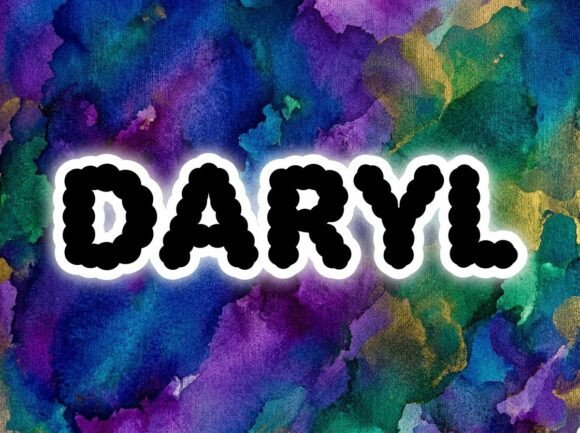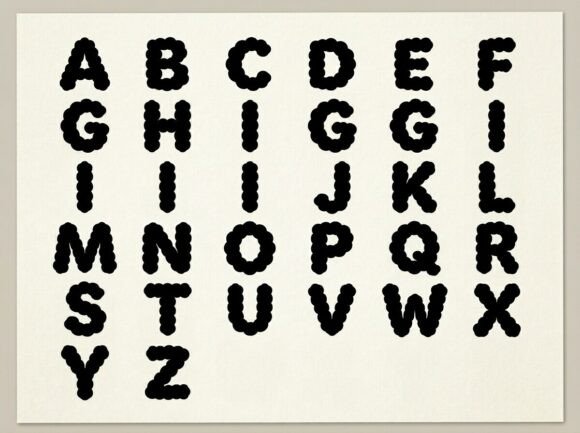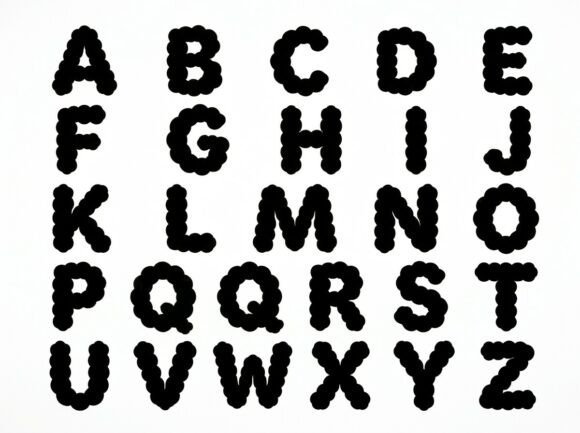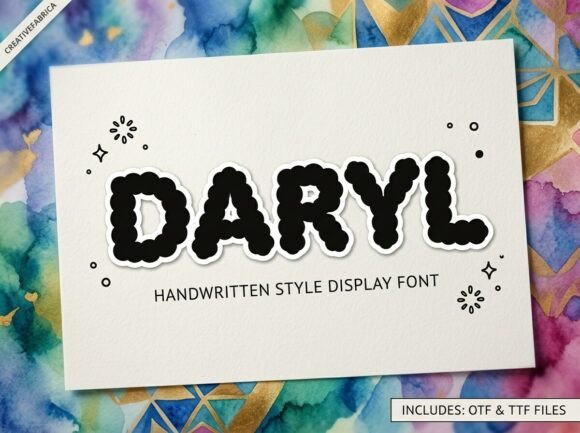
Add a Touch of Handcrafted Whimsy to Your Projects with Daryl Font
In the world of typography, few fonts capture the essence of handcrafted whimsy as perfectly as Daryl. This bold handwritten display font is a game-changer for designers and crafters looking to add a personal touch to their projects. With its unique “scalloped” edges and rhythmic, bubbly outline, Daryl is the perfect choice for anyone seeking to infuse their work with a sense of imaginative charm and professional, clean design.
The Unique Characteristics of Daryl Font
So, what sets Daryl apart from other fonts? The answer lies in its distinctive features. Each letter in the Daryl font boasts a rhythmic, bubbly outline that mimics the soft texture of clouds or artisanal paper cutouts. This unique characteristic gives Daryl a heavy visual weight and organic rhythm that is hard to resist. Whether you’re designing for a children’s event, creating playful product packaging, or crafting DIY headers, Daryl’s scalloped edges and handcrafted feel make it an exceptional choice.
Perfect for Children’s Event Branding and Playful Designs
Daryl’s playful and imaginative vibe makes it an ideal font for children’s event branding. From birthday party invitations to kids’ party decorations, Daryl adds a touch of magic to any design. Its bold and whimsical feel also makes it perfect for playful product packaging, DIY craft headers, and engaging social media graphics. With Daryl, you can create designs that are both fun and professional, making it a versatile font for a wide range of projects.
Adding a Personal Touch to Creative Projects
For crafters and designers looking to add a personal touch to their projects, Daryl is the perfect choice. Its handcrafted feel and organic rhythm give designs a sense of warmth and personality that is hard to achieve with more traditional fonts. Whether you’re creating handmade cards, crafting unique gift tags, or designing personalized stationery, Daryl’s whimsical charm and clean design make it an excellent addition to any project.
Key Features of Daryl Font
- Unique “scalloped” edges: Daryl’s distinctive scalloped edges give it a handcrafted feel that’s perfect for adding a personal touch to designs.
- Rhythmic, bubbly outline: Each letter in the Daryl font features a rhythmic, bubbly outline that mimics the soft texture of clouds or artisanal paper cutouts.
- Heavy visual weight: Daryl’s bold and playful feel makes it perfect for designs that need to stand out.
- Organic rhythm: Daryl’s organic rhythm gives designs a sense of warmth and personality.
Tips for Using Daryl Font in Your Designs
To get the most out of Daryl font, here are a few tips to keep in mind:
- Use it for headlines and titles: Daryl’s bold and playful feel makes it perfect for headlines and titles.
- Pair it with complementary fonts: Daryl pairs well with clean and simple fonts that complement its whimsical feel.
- Experiment with colors and textures: Daryl’s handcrafted feel lends itself well to experimentation with colors and textures.
In conclusion, Daryl font is a versatile and charming addition to any design project. Its unique “scalloped” edges, rhythmic, bubbly outline, and heavy visual weight make it perfect for children’s event branding, playful product packaging, DIY craft headers, and engaging social media graphics. With Daryl, you can add a touch of handcrafted whimsy to your projects and create designs that are both fun and professional. So why not give Daryl a try and see how it can bring a sense of imaginative charm and professional, clean design to your work?